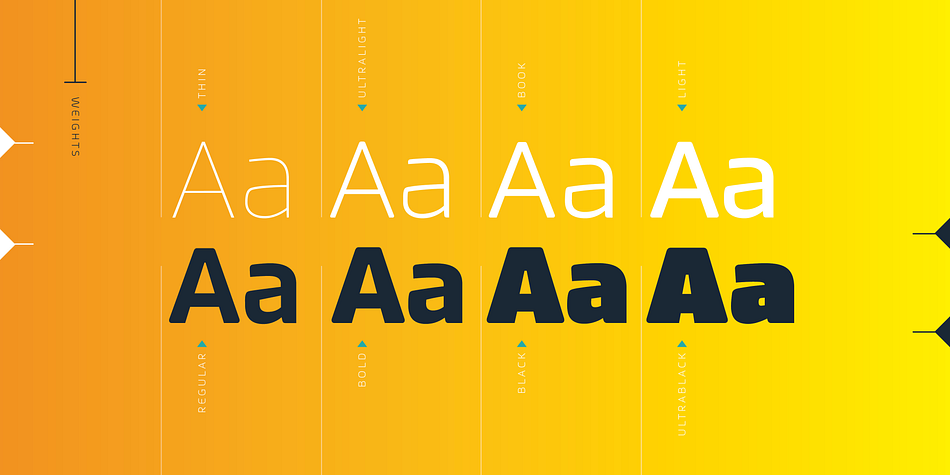
Deka
Designed by Wayne Thompson, Deka is a sans serif font family. This typeface has eight styles and was published by Australian Type Foundry.
Deka was 10 years in the making. Intended as a clean and straightforward sans serif family, it has just enough personality to stand out. Helvetica this ain’t! Deka has 8 weights, language support for all Latin plus cyrillic languages, and loads of Opentype features. It is a versatile workhorse suitable for both text and display usage.